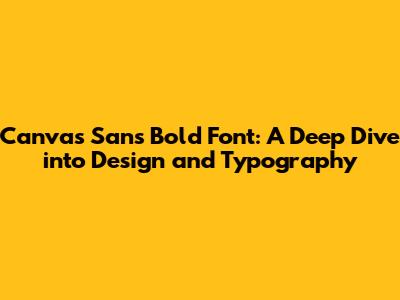
Canvas Sans Bold Font: A Deep Dive
Hey there, design enthusiasts! Let's dive headfirst into the world of typography, specifically focusing on the Canvas Sans Bold Font, a typeface that's been making waves on platforms like DaFont. This article is your ultimate guide, exploring everything from its aesthetic appeal to practical applications, and even offering some insider tips on how to best utilize this fantastic font. Get ready to level up your design game! We'll cover where to find it, how it looks, and what makes it such a great choice.
Unveiling the Canvas Sans Bold Font
First things first, what exactly is the Canvas Sans Bold Font? It's a modern, sans-serif font known for its clean lines, strong presence, and excellent readability. This font is a workhorse, suitable for a wide variety of design projects. Imagine it like that perfect pair of jeans – versatile and always in style. Developed with a focus on both aesthetics and functionality, Canvas Sans Bold brings a contemporary flair to any project, whether it's a website, a print advertisement, or even a personal invitation. The font's inherent boldness helps it stand out, making it an excellent choice for headlines, titles, and any text that needs to grab attention. The design of Canvas Sans Bold is characterized by its geometric shapes and open counters, which add to its readability, especially at smaller sizes. This ensures that your text remains clear and easy to understand, even when used in extensive blocks of content. Its simplicity allows it to blend seamlessly with various design styles, from minimalist to more elaborate layouts. Finding a font that strikes this balance is a real win for designers. Canvas Sans Bold stands out because it's not overly stylized. It focuses on clarity and impact. That's what makes it a favorite among designers who want to communicate effectively. Whether you're crafting a sleek website, designing a poster, or working on a branding project, this font offers a solid foundation.
Key Features and Characteristics
Let’s zoom in on what makes the Canvas Sans Bold Font so special. The font's core characteristic is its boldness. It is designed to capture immediate attention, making it perfect for headlines, titles, and any area where you want to ensure the text pops. Its clear, clean design also enhances readability, making it comfortable to view even at smaller sizes. This is really great for body text or in instances where you have a lot of content packed into a tight space. Another key feature is its modern aesthetic. The font features geometric shapes and open counters, which give it a contemporary look. This makes it an ideal choice for modern and minimalist designs. Compared to other fonts, Canvas Sans Bold is highly versatile. It works well across a range of applications, from digital designs to print materials. Its adaptability makes it a valuable asset for designers. The spacing of the letters has been carefully considered to ensure good legibility. This careful attention to detail is a significant factor in why this font is so easy to read and why it's a great choice for various project types. Lastly, the font offers a sense of stability and reliability. This makes it a great choice for brands that want to convey a sense of professionalism and trustworthiness. With its blend of modern aesthetics, outstanding readability, and adaptability, Canvas Sans Bold stands out as a strong choice for various design projects, helping to ensure your message is communicated clearly and effectively.
Applications and Best Use Cases
The Canvas Sans Bold Font is incredibly versatile, making it perfect for a wide range of applications. Firstly, its bold design makes it an excellent choice for headings and titles. Websites, posters, and advertisements are perfect for this font. Secondly, it is a great font for branding. If you're looking to establish a strong brand identity, Canvas Sans Bold can help you create a memorable and professional look. Its bold appearance and clean lines ensure that your brand stands out, while its readability guarantees that your message is clear. Furthermore, it works wonderfully in print media. Whether you’re designing brochures, magazines, or books, this font's clarity and readability make it perfect for both headlines and body text. Digital design is where it truly shines. From websites and apps to social media graphics, Canvas Sans Bold adapts seamlessly. Consider it for call-to-action buttons or highlighted text to draw attention. The font is also great for infographics. The clear letterforms and bold weight ensure readability. This is particularly important when presenting complex information. Think about using it for presentations, where you need to communicate key points in a clear and visually appealing way. Finally, consider using it for both personal and professional projects. Whether it’s creating invitations, designing resumes, or crafting professional documents, this font will always do the job.
Tips for Using Canvas Sans Bold Effectively
Want to make sure you're getting the most out of your Canvas Sans Bold Font? Here are a few pro tips. Firstly, always pair it with a complementary font. Use a sans-serif for headings and a serif font for body text to create a balanced design. Secondly, always consider the contrast. When using Canvas Sans Bold, make sure there is enough contrast between the font and the background. This will make your text more readable. For example, use a light color on a dark background or vice versa. Next, pay attention to the font size. Choose an appropriate size to ensure your text is easily readable. For headings, use a larger size to grab attention. For body text, ensure a comfortable reading size. Experiment with spacing. Adjust the letter spacing and line height to improve readability. A little adjustment can make a big difference in how your text appears. Lastly, consider the weight. The bold weight of Canvas Sans Bold is perfect for headlines, but for body text, you might need to adjust the font weight to ensure clarity. By following these tips, you'll ensure that your design projects look professional and effective.
Canvas Sans Bold vs. Other Fonts
When choosing a font, it's always good to compare it to others. Let's stack up Canvas Sans Bold against some popular alternatives to see how it fares. First up is Helvetica Neue Bold. While both are sans-serif fonts, Canvas Sans Bold often has a more contemporary and less corporate feel. Helvetica can sometimes feel a bit more rigid, while Canvas Sans Bold provides a slightly more approachable vibe. Next, consider Roboto Bold. Both are excellent choices for digital design, but Roboto might offer a slightly wider range of weights and styles. Canvas Sans Bold, however, may have a cleaner, more streamlined aesthetic, which could be preferable depending on the project. Then there is Open Sans Bold. Open Sans is known for its versatility and readability. Canvas Sans Bold often has a stronger, more assertive presence. If you need something that grabs attention, Canvas Sans Bold may be the better pick. Finally, compare it to Arial Bold. Arial is a classic, but Canvas Sans Bold has a more modern appearance. While Arial is widely used, Canvas Sans Bold can help you stand out with a fresh look. Overall, Canvas Sans Bold offers a unique combination of readability, modernity, and versatility. By understanding its characteristics and comparing it to other fonts, you can make the best choice for your design needs.
Conclusion: Why Canvas Sans Bold is a Winner
In conclusion, the Canvas Sans Bold Font is a fantastic choice for any designer looking for a versatile, readable, and visually appealing typeface. Its bold presence, clean lines, and modern aesthetic make it perfect for a wide range of applications, from headlines and titles to branding and print materials. Whether you're a seasoned designer or just starting out, this font offers a solid foundation for your creative endeavors. Remember to grab it from a reputable source like DaFont, consider your project's specific needs, and experiment with different pairings and layouts. Go forth and create some amazing designs! Happy designing, and may your projects always look their best!